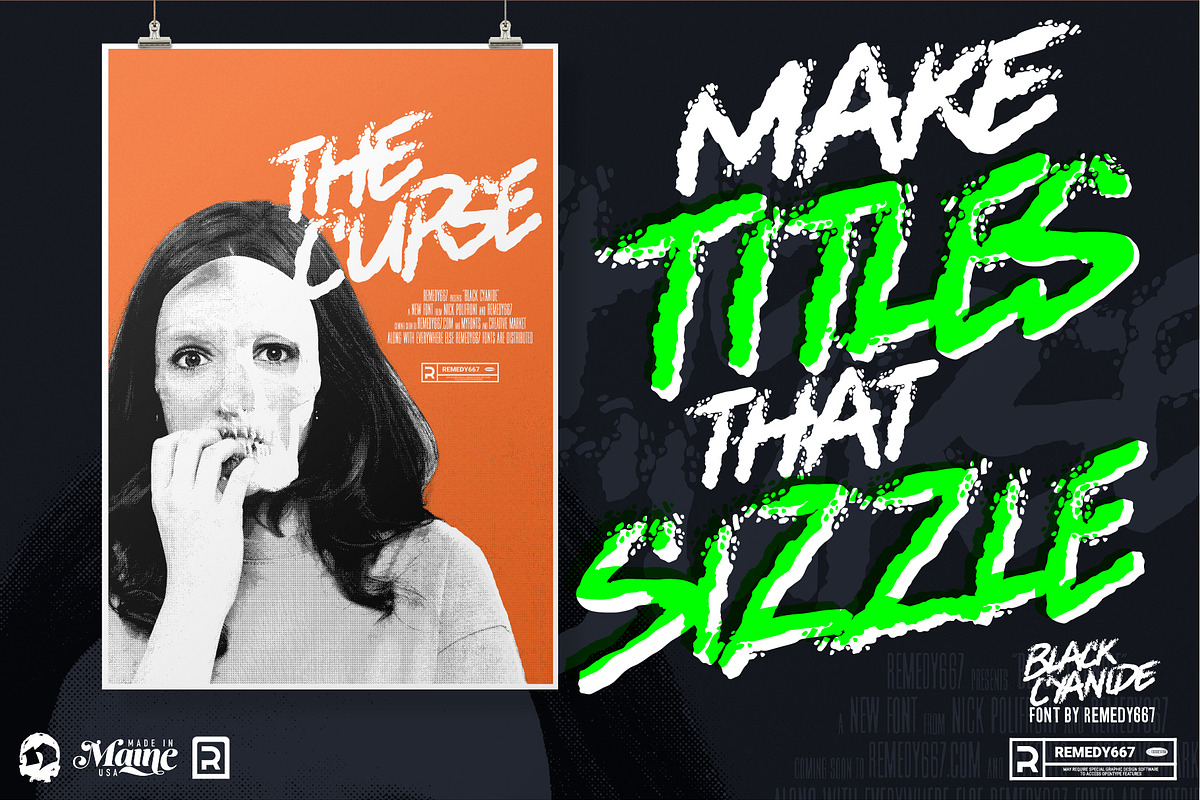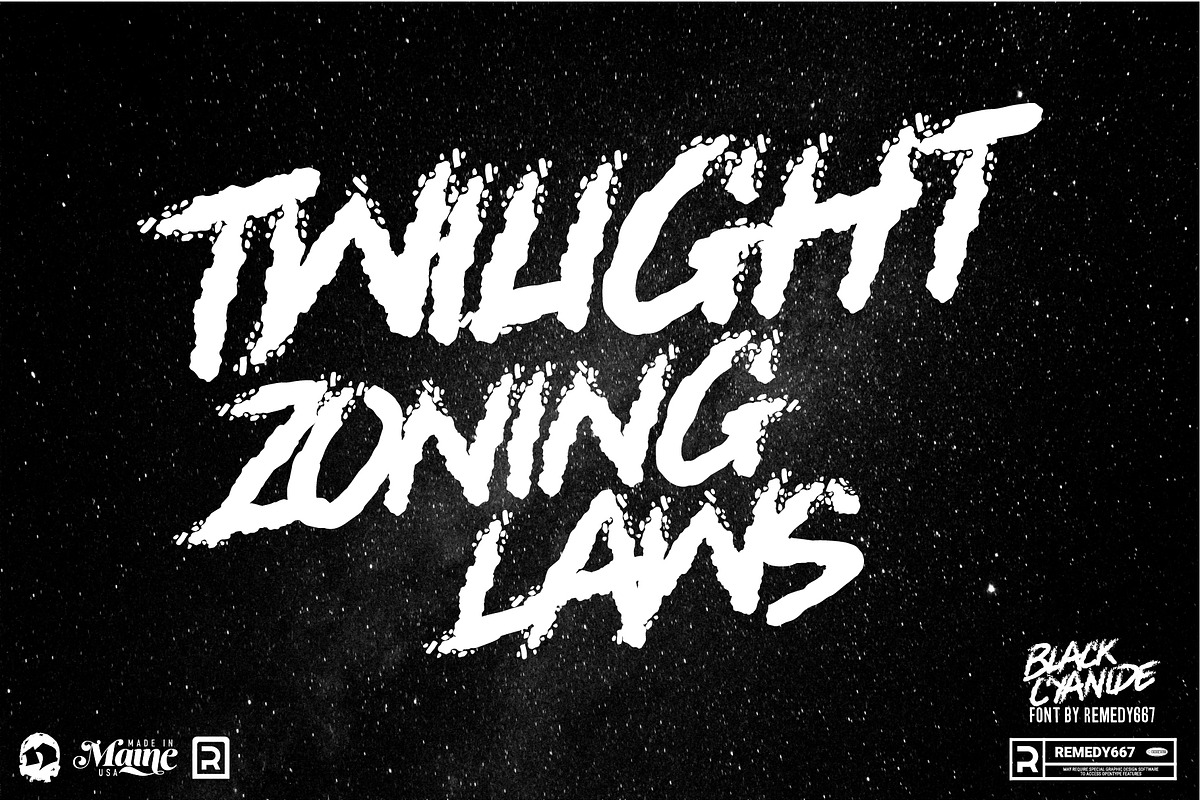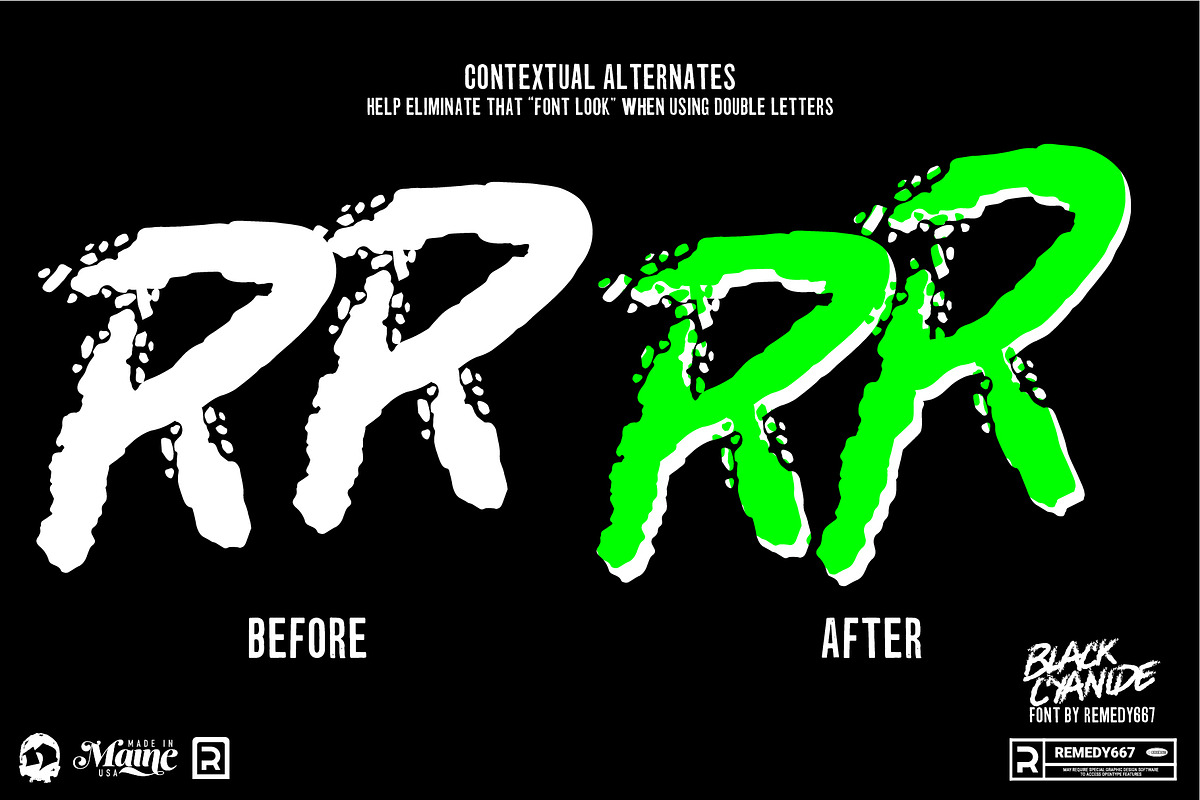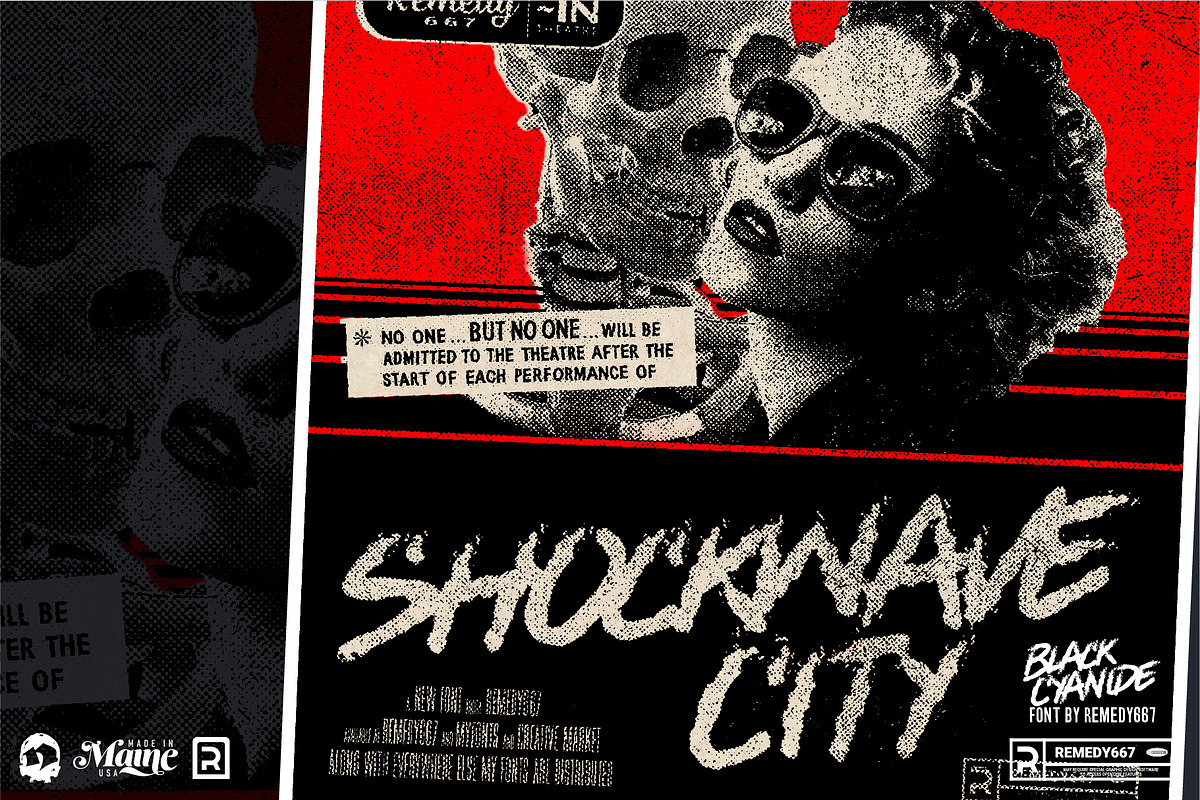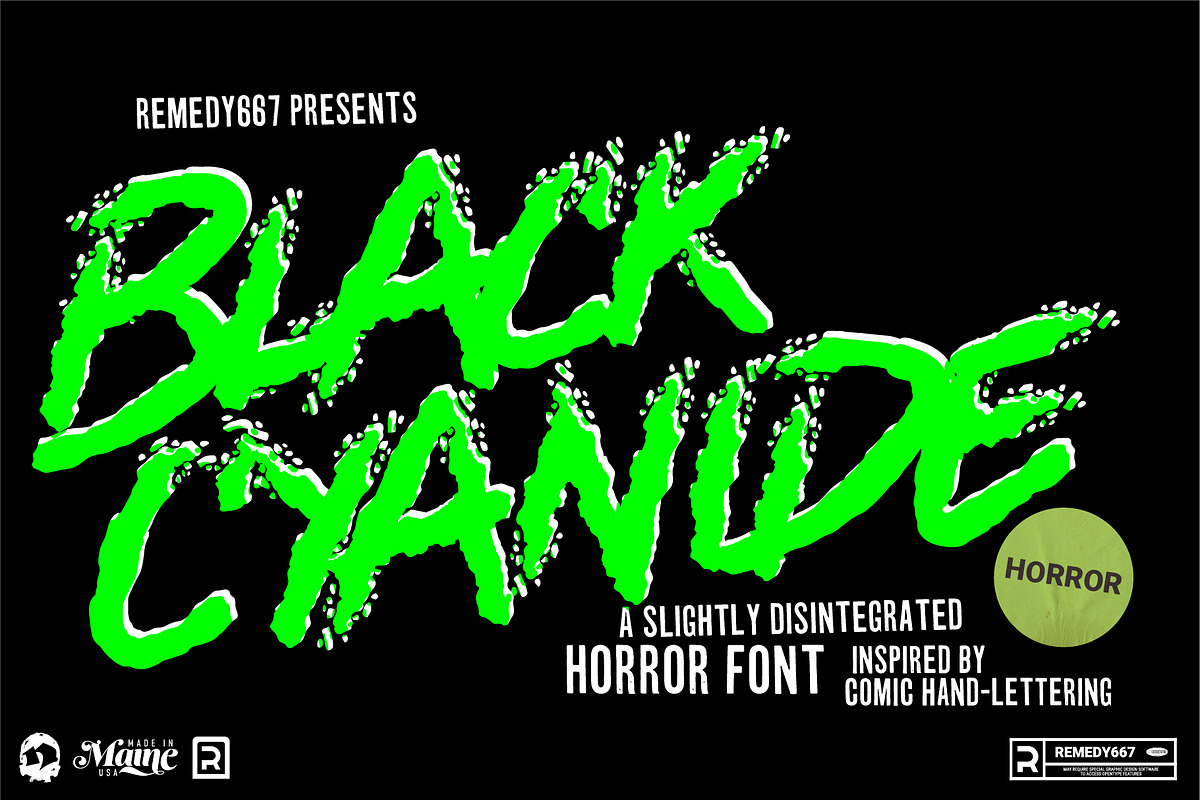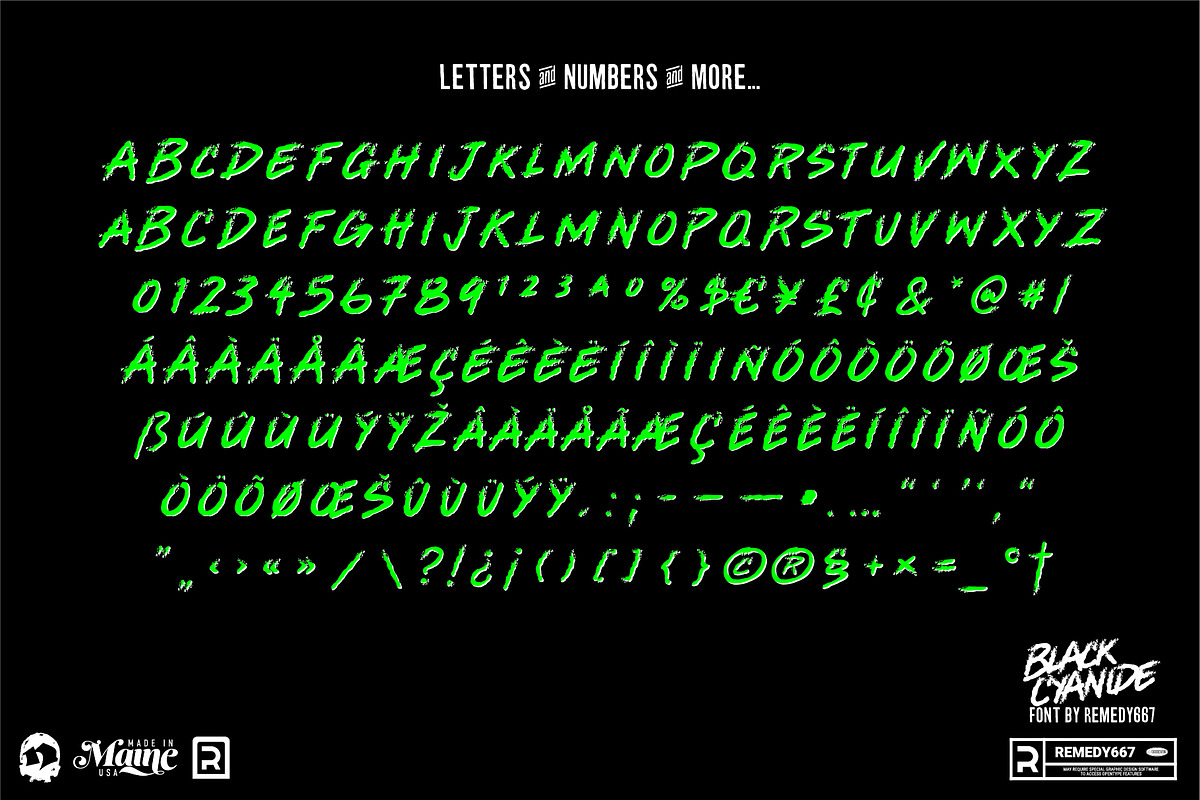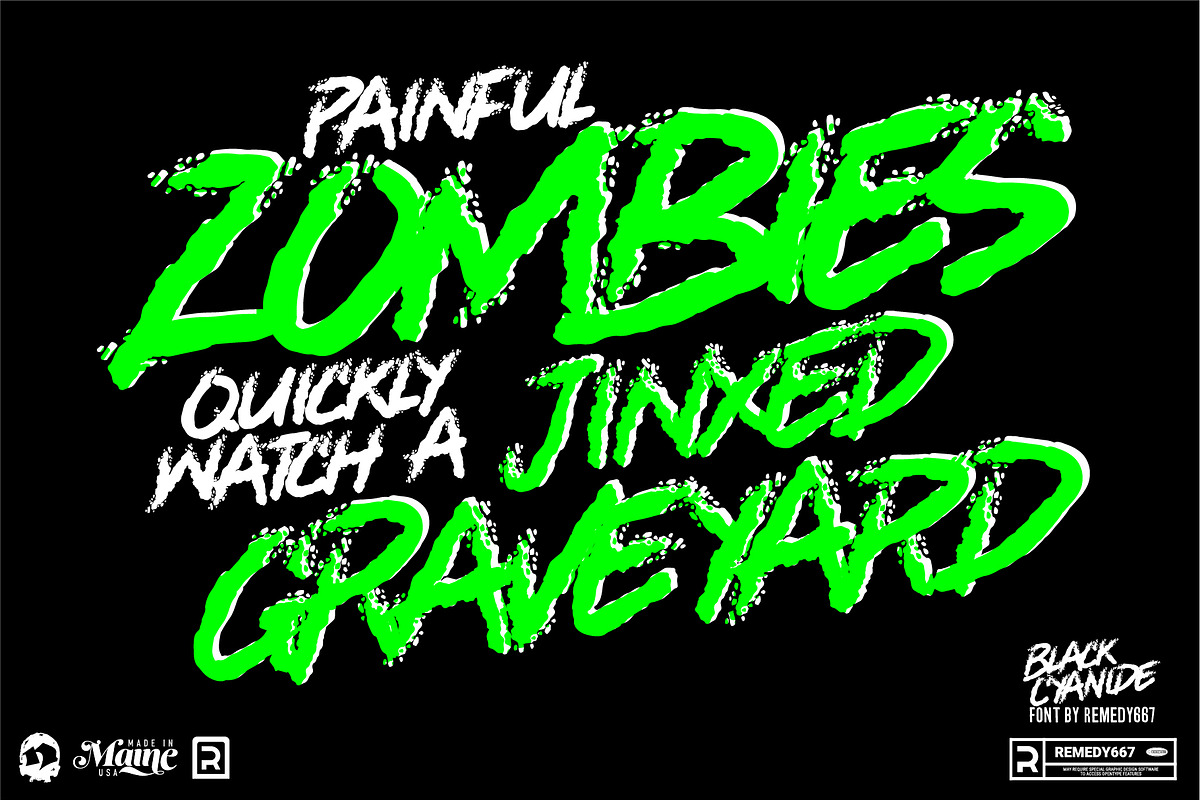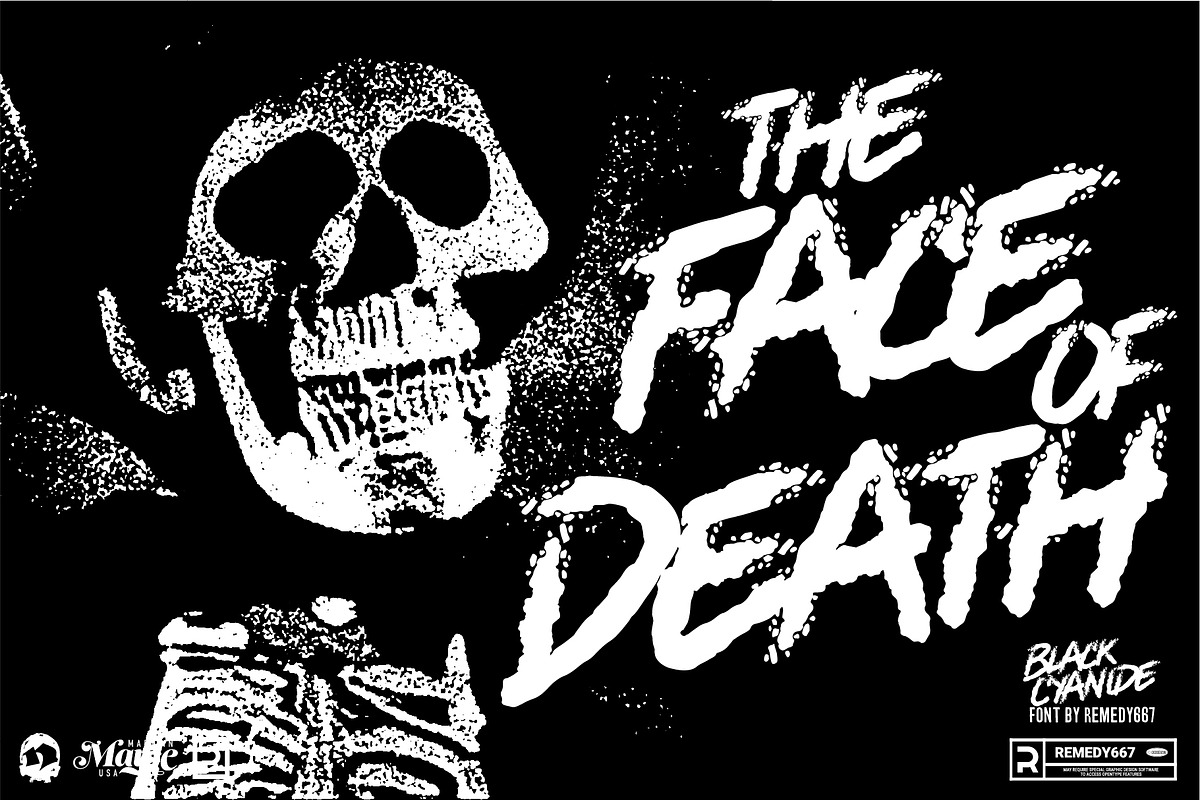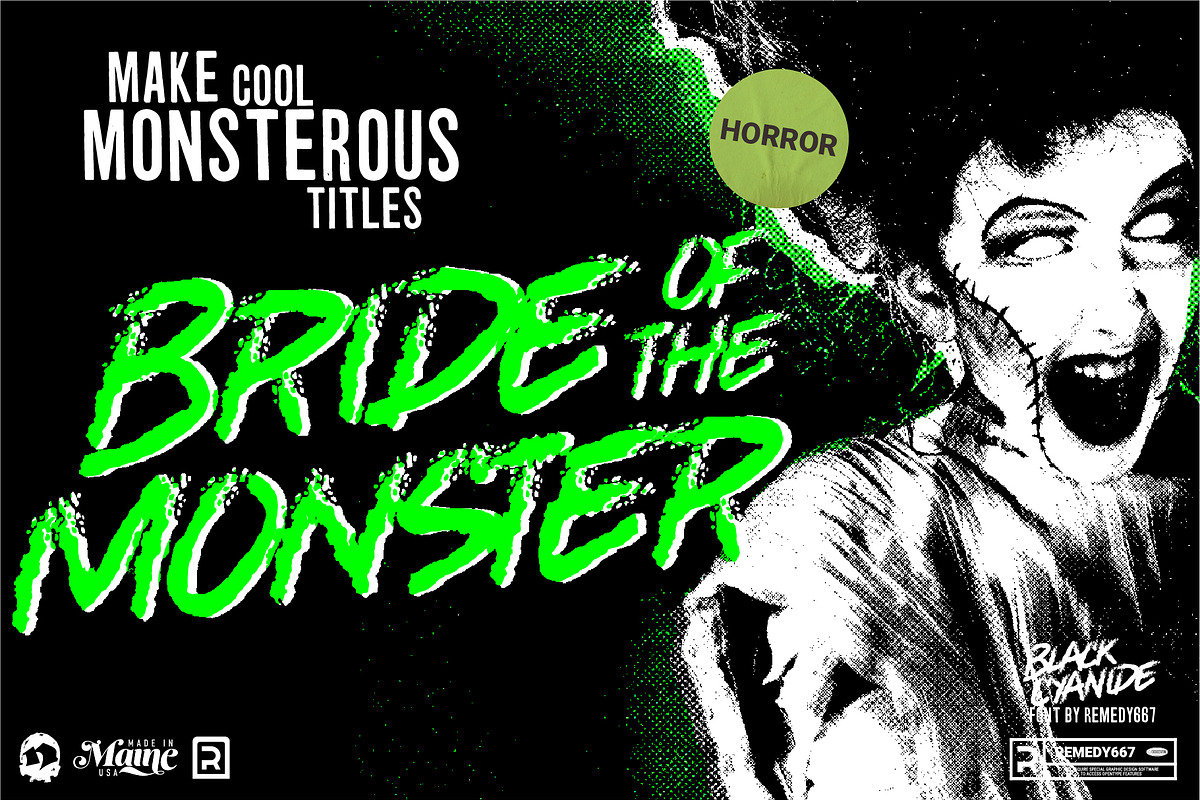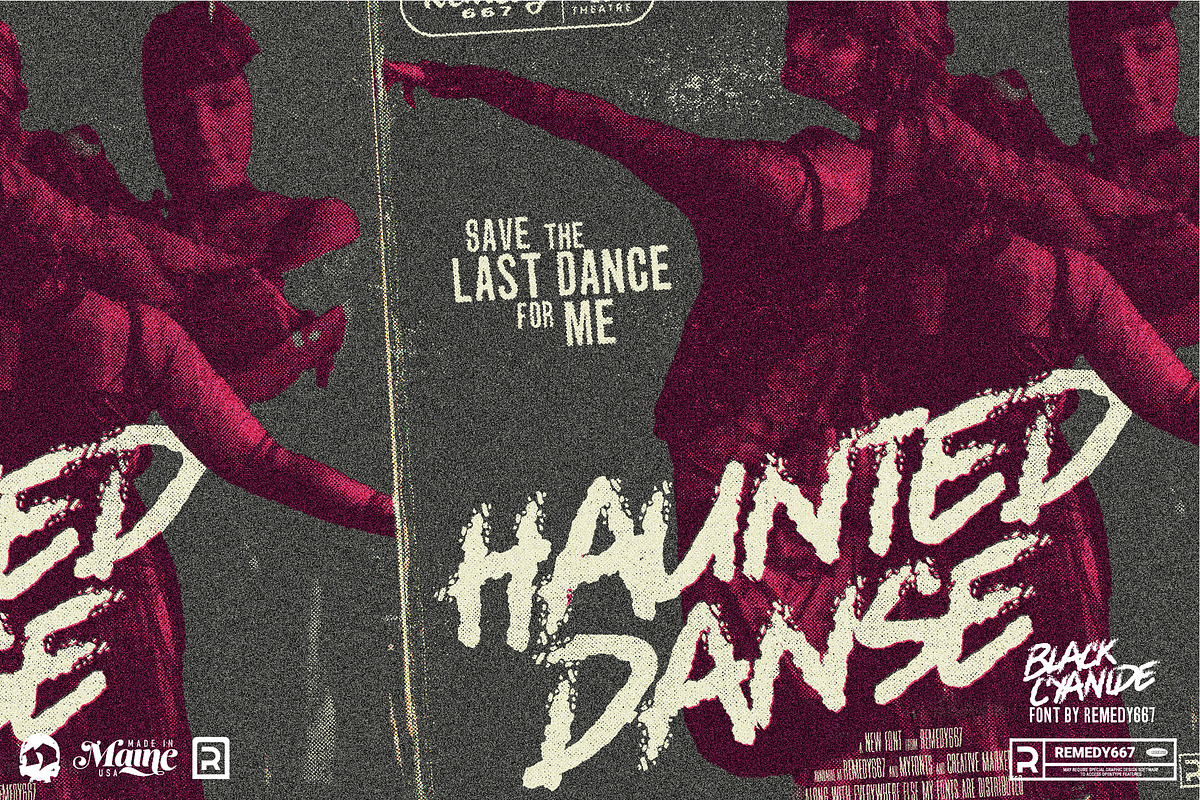
Black Cyanide
Horror typography has never been more exciting! Black Cyanide is a bold, new horror font with a grunge edge. It’s a great font for titles and other large headings. Give your type a spooky twist with Black Cyanide, the new font created for horror titles. Give your artwork that old-school comic vibe. If you’ve been looking for a font that will make your text stand out from the crowd, this is it!
When you need that one-of-a-kind horror font, it’s Black Cyanide. Filled with pointy lines and sharp curves, perfect for old the comic look and capturing elements of bold lettering with an old-fashioned, hand-drawn feel.
- Get that monotonous, “font” look out of your designs with the help of this versatile font
- Give your work a hand-drawn feel without actually having to draw anything yourself